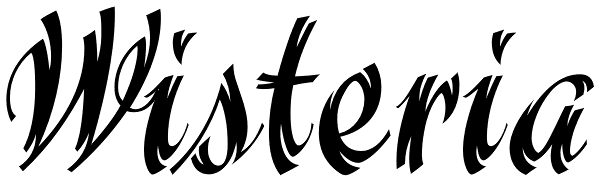
ITC Wisteria
ITC Wisteria was designed by Michael Stacey, a Florida-based artist and graphic designer. An ardent collector and recycler of vintage graphic design and typography, Stacey is especially intrigued by the lettering styles of sign painters and...